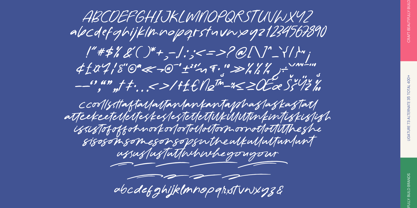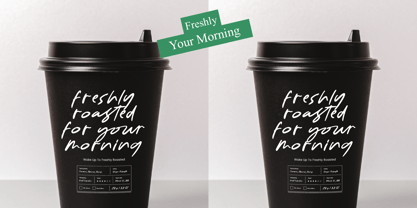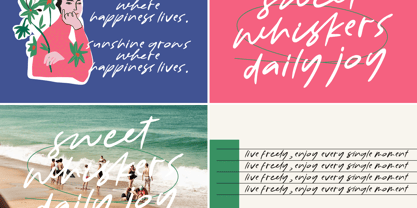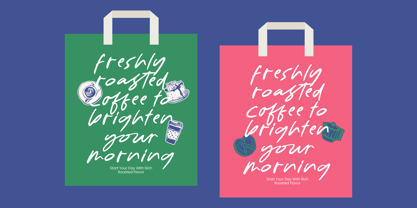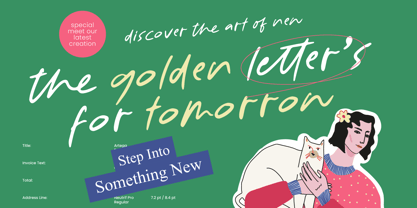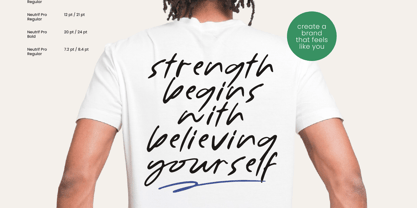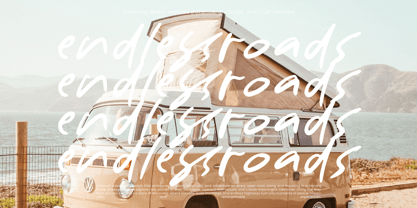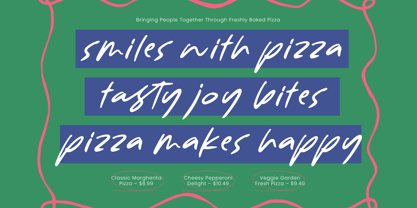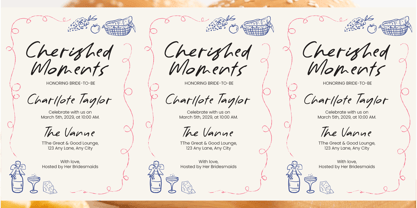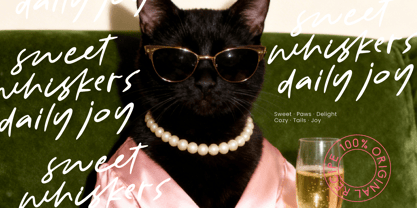
Golden Tomorrow
by Letterena Studios
The Golden Tomorrow Font Family was designed by Heru Utama Putra and published by Letterena Studios. Golden Tomorrow contains 2 styles and family package options. More about this family
Embrace the beauty of the handwritten word with Golden Tomorrow, a font that captures the fleeting essence of a personal note. It is the perfect bridge between raw human emotion and professional design clarity.
Born from the pages of a well-loved journal, this typeface reflects the spontaneity of quick thoughts and the grace of a handwritten letter. Each stroke carries the weight of a story waiting to be told in the golden light of a new day.